Whenever you design, you can combine graphics, font, color, and other elements. The font combinations you use will impact your design. No matter how well you use the other elements, if your font combination is off, you will not have an impact. You will not use one font throughout your design; you will have to know what fonts look good together. It will be good to know of some attractive Canva fonts that go together with your design.
Look carefully at the examples of the fonts that go together, and you will realize that they look different. Yet that difference is what makes them fit perfectly together.
Attractive Canva fonts that go together for your design
The fonts that go together for your design will help to make or break it. if you use the wrong fonts together, you will lose the effectiveness of the design. Here are the 10 attractive Canva fonts that go together with your design.
- Selima and League Spartan
- Termus Light + Trirong Light
- Anton + Aileron Regular
- Bellaboo + Arimo + Space Mono
- Playlist Script + Hussar Ekologicsy
- Bodoni FLF + Montserrat Extra Light
- High Cruiser + Fraunces Thin
- Lovelo + Gistesy
- Shrikhand + Tenor Sans
- Lemonada Semi Bold + Open Sans Bold
1] Selima and League Spartan
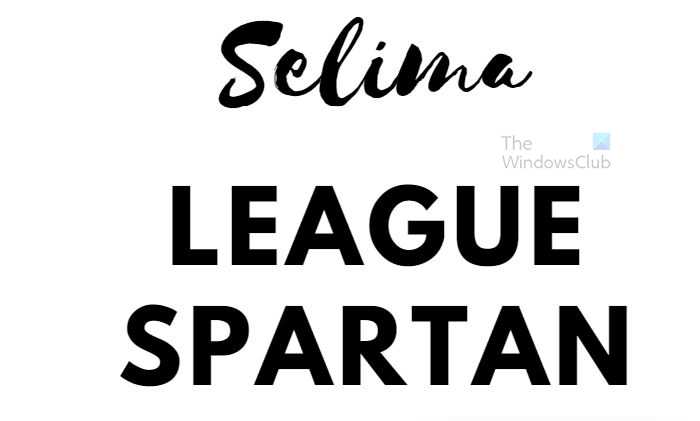
The Selima font is playful while the League Spartan font is strong and bold. Putting both together in the proper place can make your project more effective.
2] Termus Light + Trirong Light
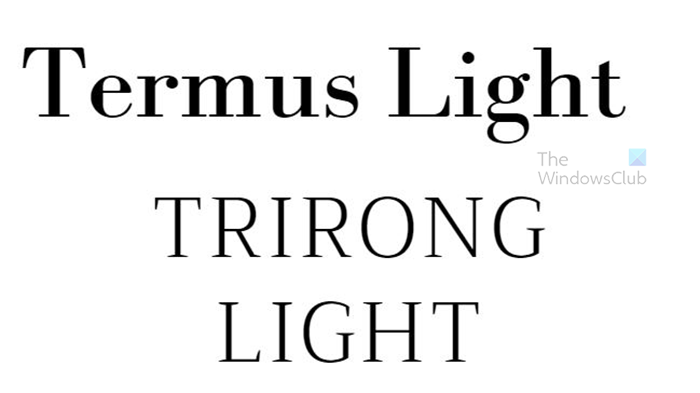
Even though the fonts Termos Light and Terirong Light both have light in their names, Termus Light is a bit bolder and darker than Trirong Light. This difference makes them fit perfectly in your project. Oe could be used as a main heading and the other used as a subheading.
3] Anton + Aileron Regular
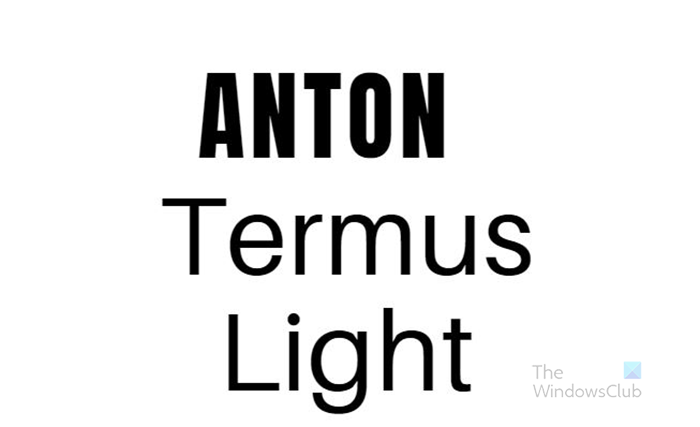
The font Anton is a dark, bold, strong font that would do well as a logo or emphasis in a flyer. Termus Light would do well as body text for your flyer or book.
4] Bellaboo + Arimo + Space Mono
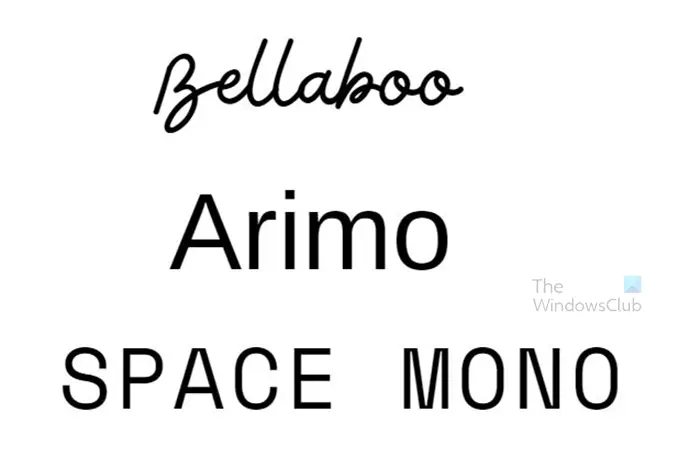
Bellaboo is a fancy curvy font and it is nicely fitted with Arimo and Space Mono. Keep in mind that fonts going together well can be more than two. This is important because you may need to use more than two fonts in a project and finding the right matching fonts is very important.
5] Playlist Script + Hussar Ekologicsy
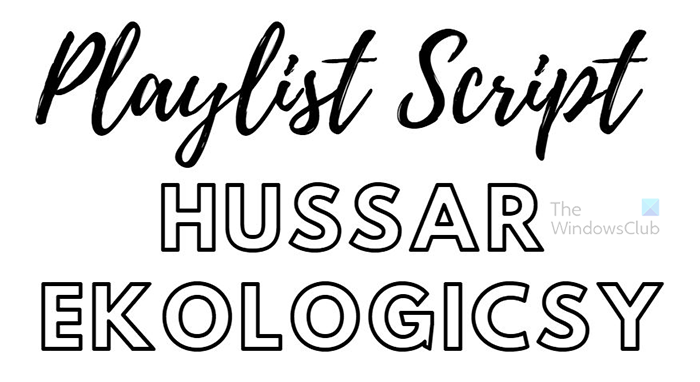
The Playlist Script font is a dark font that has a playful look. Hussar Ekologicsy is an outline font that appears strong even though it is an outline.
6] Bodoni FLF + Montserrat Extra Light
Bodoni FLF could be used for your heading while Monserrat Extra Light could go for body text. the contrast between both would make the project more readable.
7] High Cruiser + Fraunces Thin
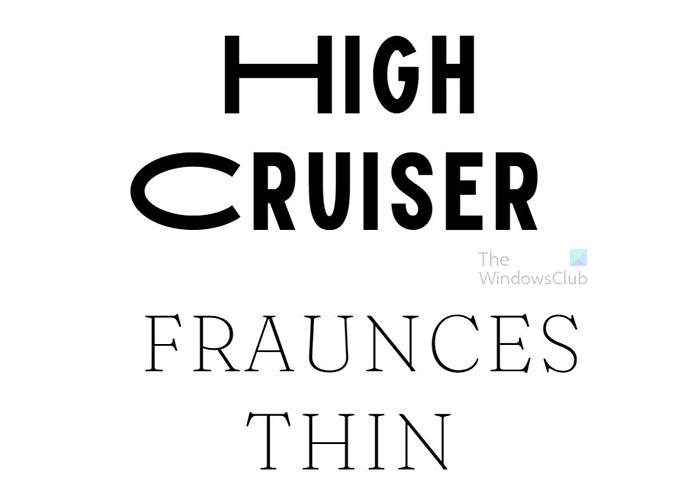
The High Cruiser font is a strong bold font and is good for a logo, heading, or anything that you need to stand out. The Fraunces Thin font is a thin font as the name suggests. It could be used for the body text or other information in your project.
8] Lovelo + Gistesy
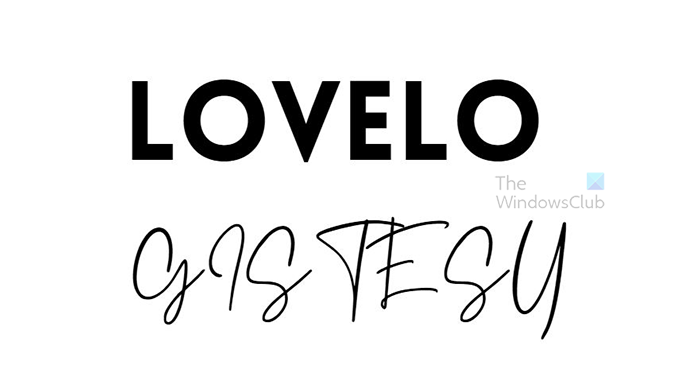
The Lovelo font and the Gistesy font are a perfect match. They would look perfect together in greetings or double-word names such as Happy Birthday or Welcome Home and any such words. Having both words in a different font adds emphasis to what you are saying.
9] Shrikhand + Tenor Sans
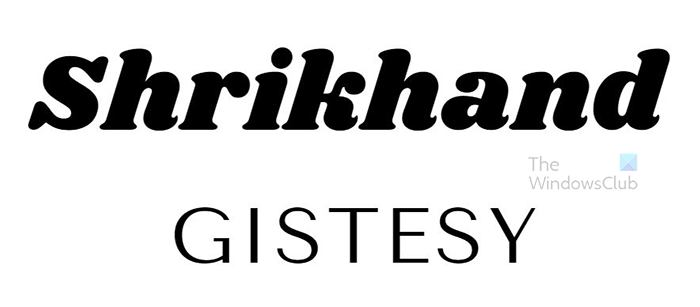
As stated above, the combination of Shrikland and Gistesy works well in double words. They also work well as main headings and subheading fonts. Gistesy would work well as text for the body of a project.
10] Lemonada Semi Bold + Open Sans Bold
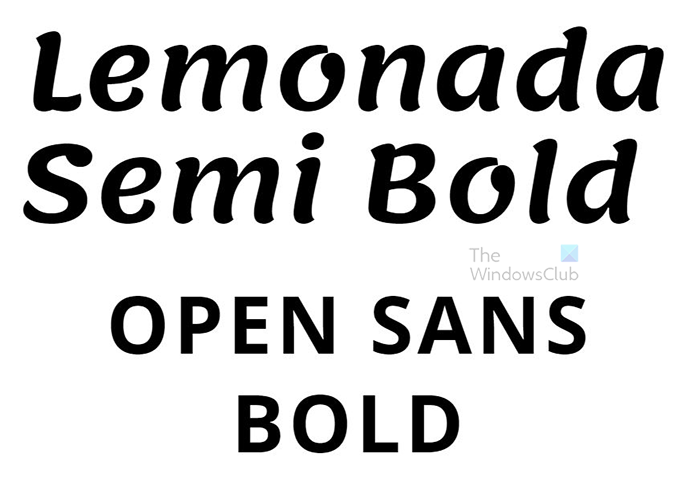
The Lemonada Semi Bold font would make a great logo or title for a project. The Open Sand Bold font would make be great as the tagline for the logo or the subtitle for the project.
What are innovative Canva Pro fonts you must know?
There are some fonts that you should know if you intend to use Canva. Even though there are a lot of other fonts, these are starter fonts that you can use to make your projects stand out.
- Six caps
- Norwester
- Kollektif Regular
- Libre Baskerville
- Tan Mon Cheri+
- Maleah
- Poppins
- Cupcake
- Sacramento
- Six Caps.